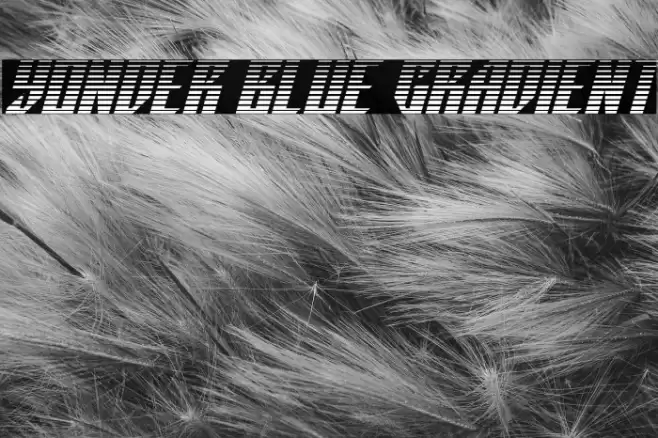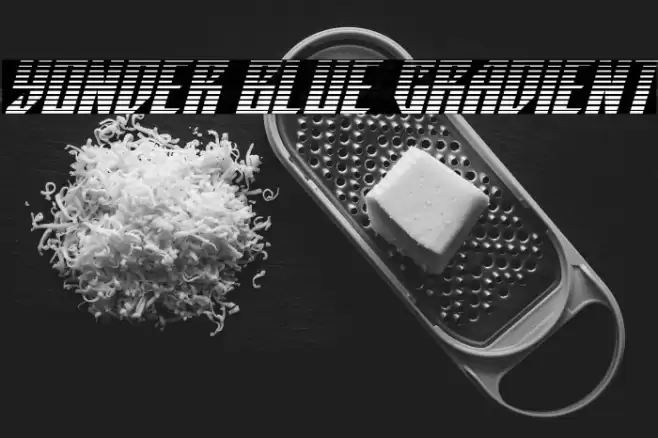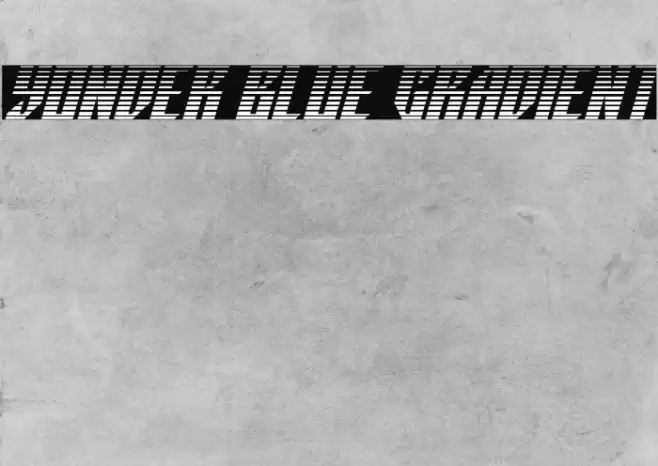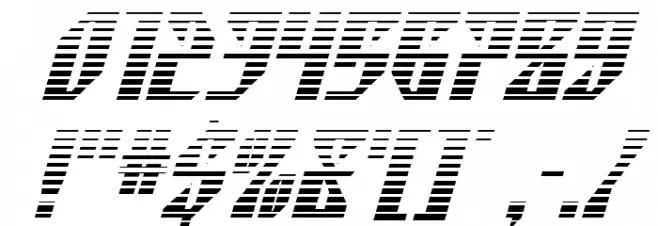
Yonder Blue Gradient Font
Yonder Blue Gradient Description
This font features a bold, futuristic design with a distinct horizontal line pattern running through each character, creating a sense of motion and speed. The uppercase and lowercase letters maintain a consistent style, with sharp angles and a slightly italicized slant, enhancing its dynamic appearance. The numbers and special characters follow the same design principles, ensuring uniformity across all glyphs. The font's unique striped effect gives it a modern, tech-inspired look, making it stand out in any design project.
A bold, futuristic font with a dynamic striped pattern and italicized slant from Regular fonts.
- Proposed Projects: Ideal for technology branding, sports team logos, futuristic posters, and video game titles.